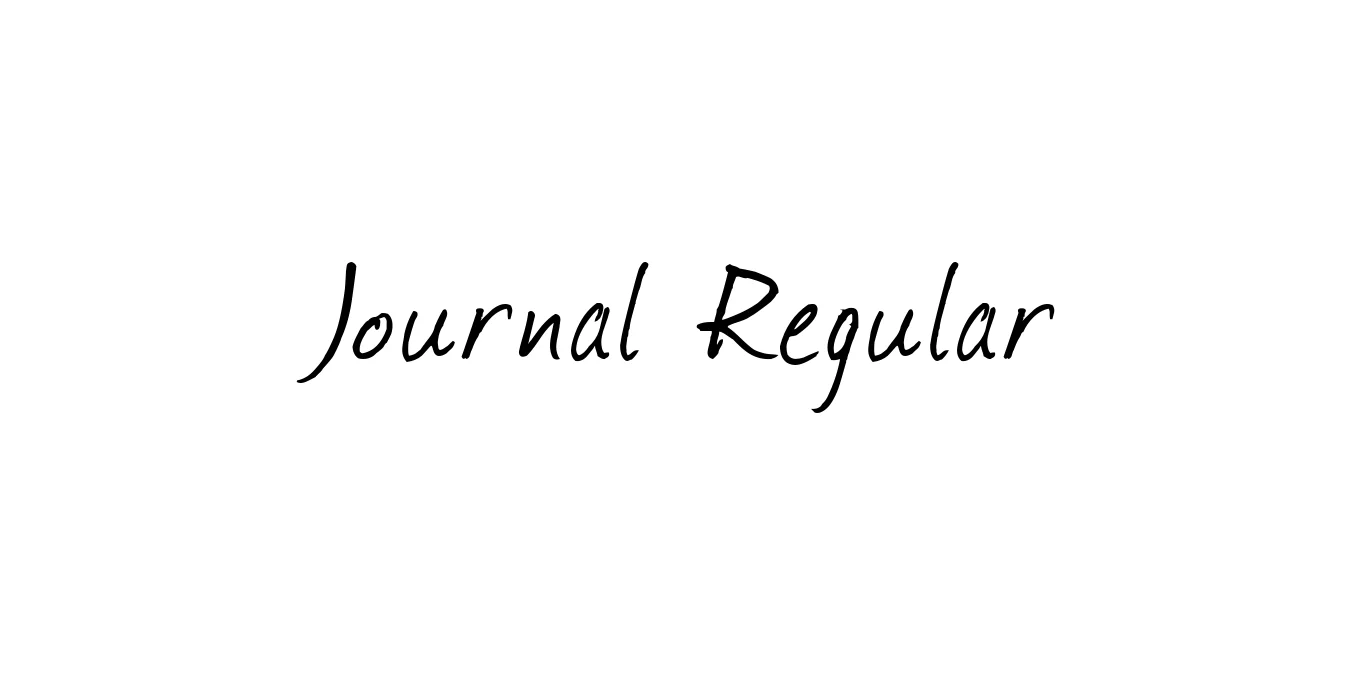
Journal Regular
Designed by Hans-Hermann Brunner
| Category | Handwritten Script |
| Designer | Hans-Hermann Brunner |
Journal Regular is a widely recognized handwritten script typeface that captures the effortless aesthetic of everyday penmanship. Designed by Hans-Hermann Brunner, the font was crafted to replicate the natural flow of notes written in a personal diary or travel log. Its organic lines and subtle imperfections provide a humanistic quality that breathes life into digital layouts, offering a stark contrast to more clinical or geometric typefaces.
Since its inception, Journal has become a favorite among designers seeking to convey a sense of intimacy and authenticity. It is particularly well-suited for editorial projects, lifestyle blogs, and stationery design where an approachable, DIY tone is essential. Despite its informal style, the typeface maintains excellent legibility, making it effective for both decorative headers and short, narrative body text in creative storytelling.
Journal Regular Best Uses
Ideal for magazine sidebars, pull-quotes, and personal anecdotal segments.
Excellent for blog headers, social media overlays, and organic UI elements.
Perfect for greeting cards, scrapbooking, and wedding invitations.
Adds a relatable and handcrafted feel to digital marketing assets.